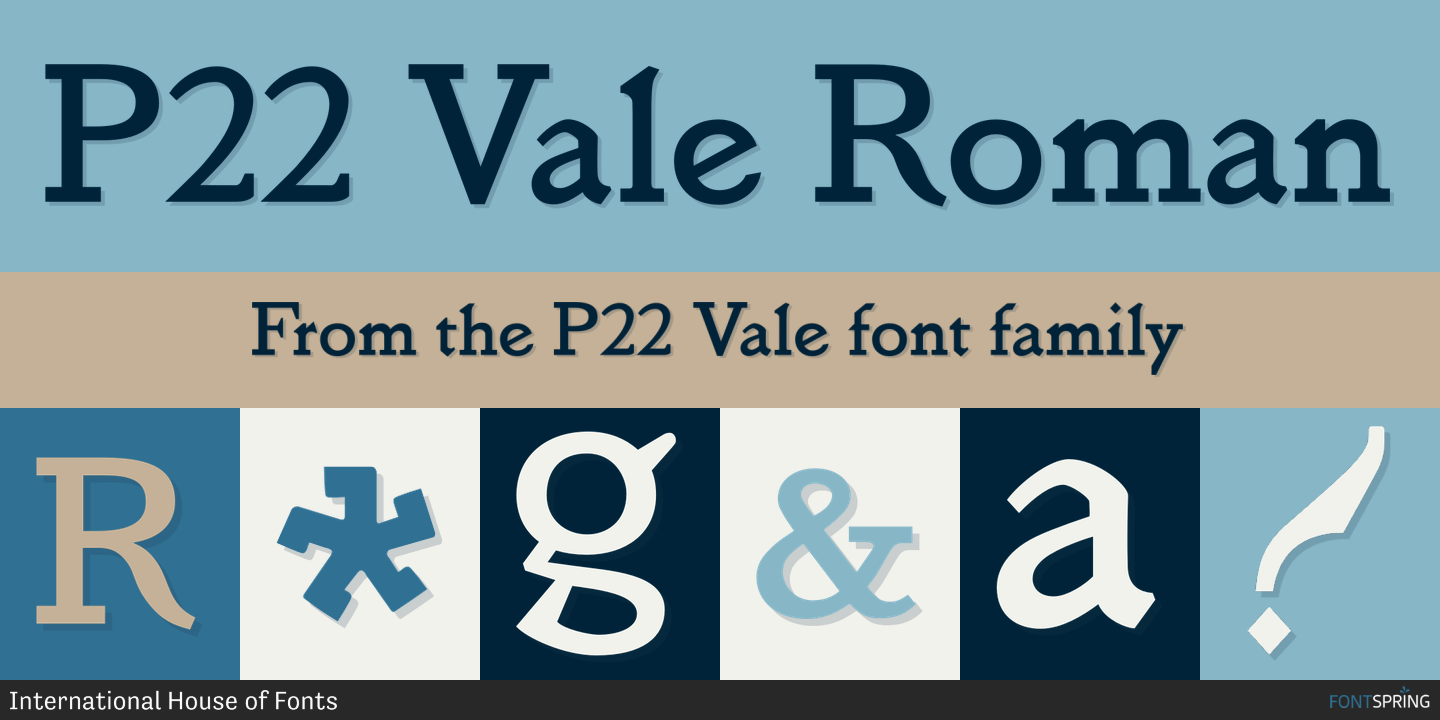
P22 Vale Roman
P22 Vale is a historical and slab serif font family. This typeface has three styles and was published by International House of Fonts.
The Vale Press was a contemporary of Willam Morris’s Kelmscott Press. The types used by the Vale Press were designed by artist Charles Ricketts, who also supervised the design and printing of Vale Press books. The main type used, Vale, was based on the Jenson 15th century roman type style.
The King’s Fount was an experimental semi-uncial font based on the Vale type. The King’s Fount was designed in 1903 for the Vale edition of the 15h century poem “The Kingis Quair”. This semi-uncial font evokes old English and Anglo-Saxon lettering.
P22 Vale Pro combines the two fonts P22 Vale Roman and P22 Vale King’s Fount into one “Pro” font. This pro font also includes a Central European character set, old style figures, fractions, ornaments and a special faux “Middle English” feature to make “anee text appeer Olde.” This feature is not known to exist in any other font.